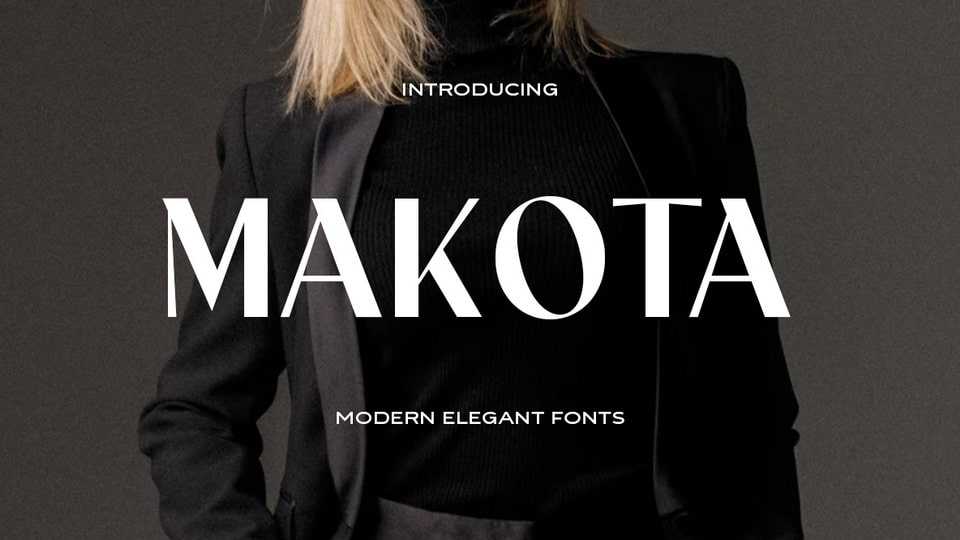
Download Makota font, a modern font that is perfect for use in luxury-related design projects. Its tall elegant typeface makes it ideal for branding and advertising